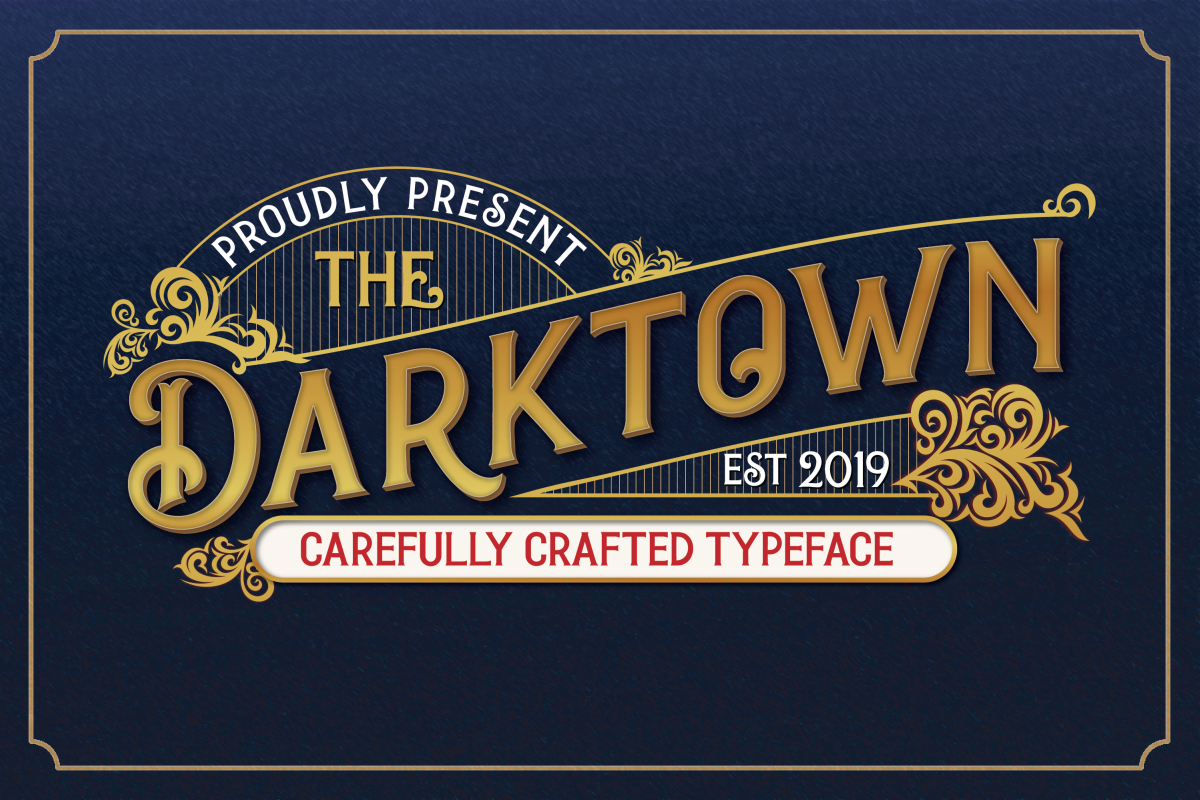
Darktown Vintage Font
Darktown Vintage
Darktown is a Vintage Font inspired by vintage packaging and advertising from the early 20th century. It is perfect for vintage logo design, headlines or packaging design.
Excellent Typeface, lots of character